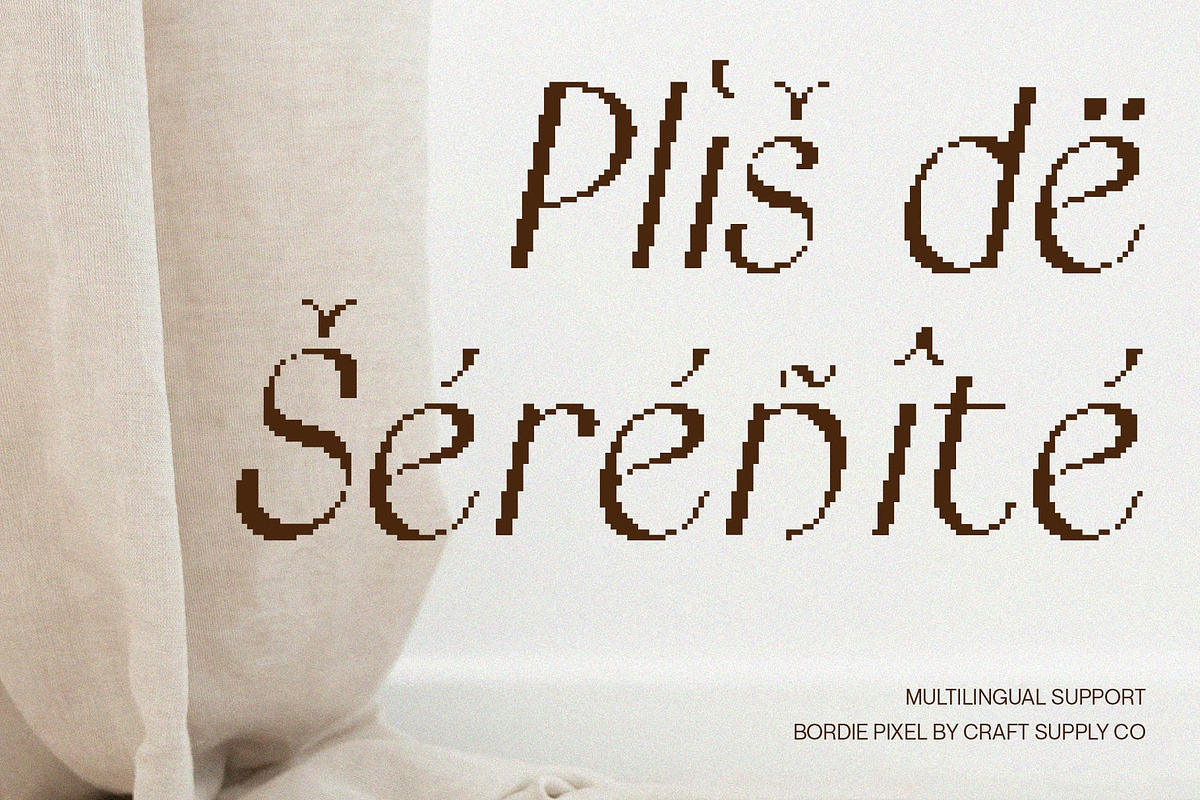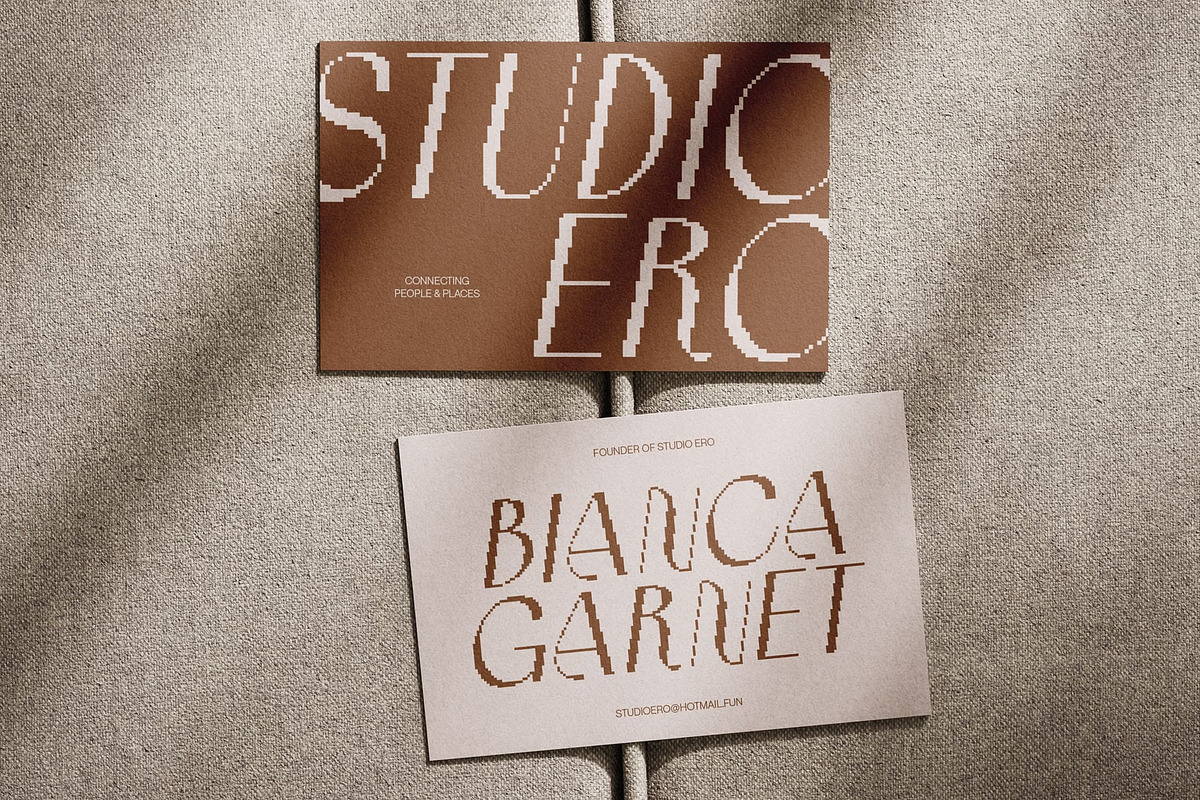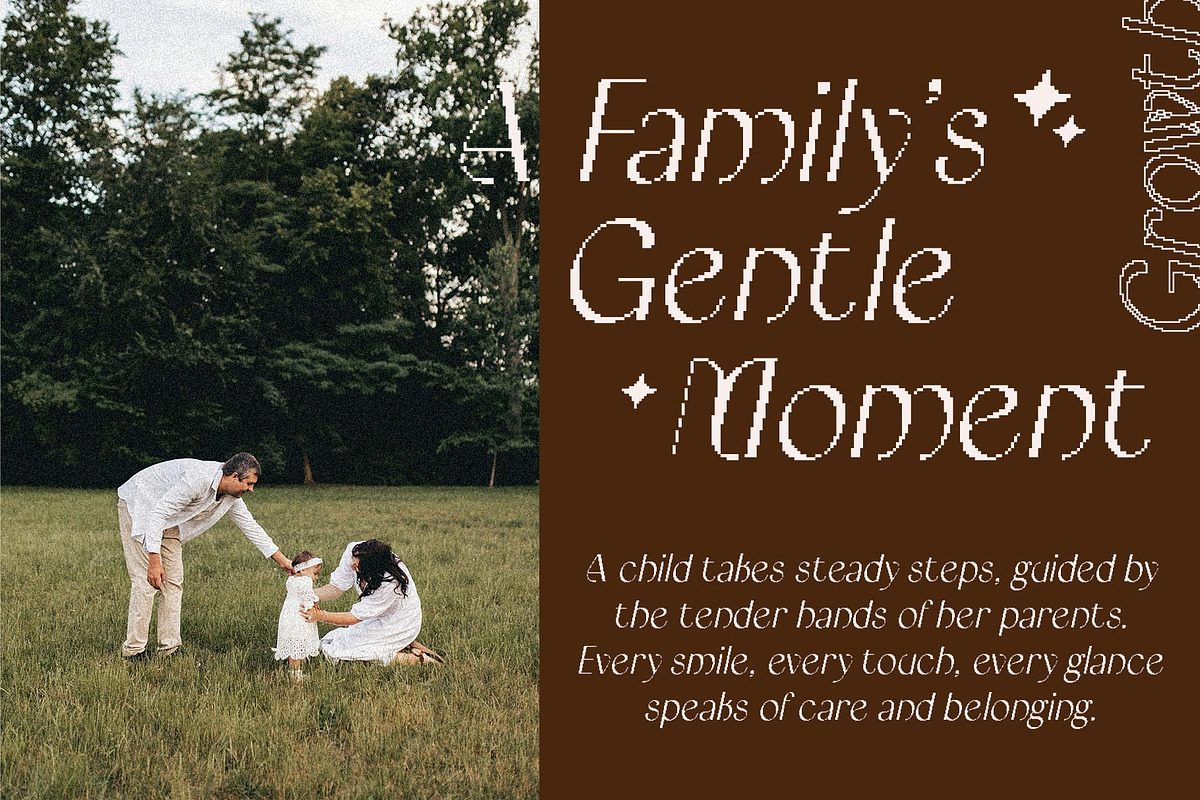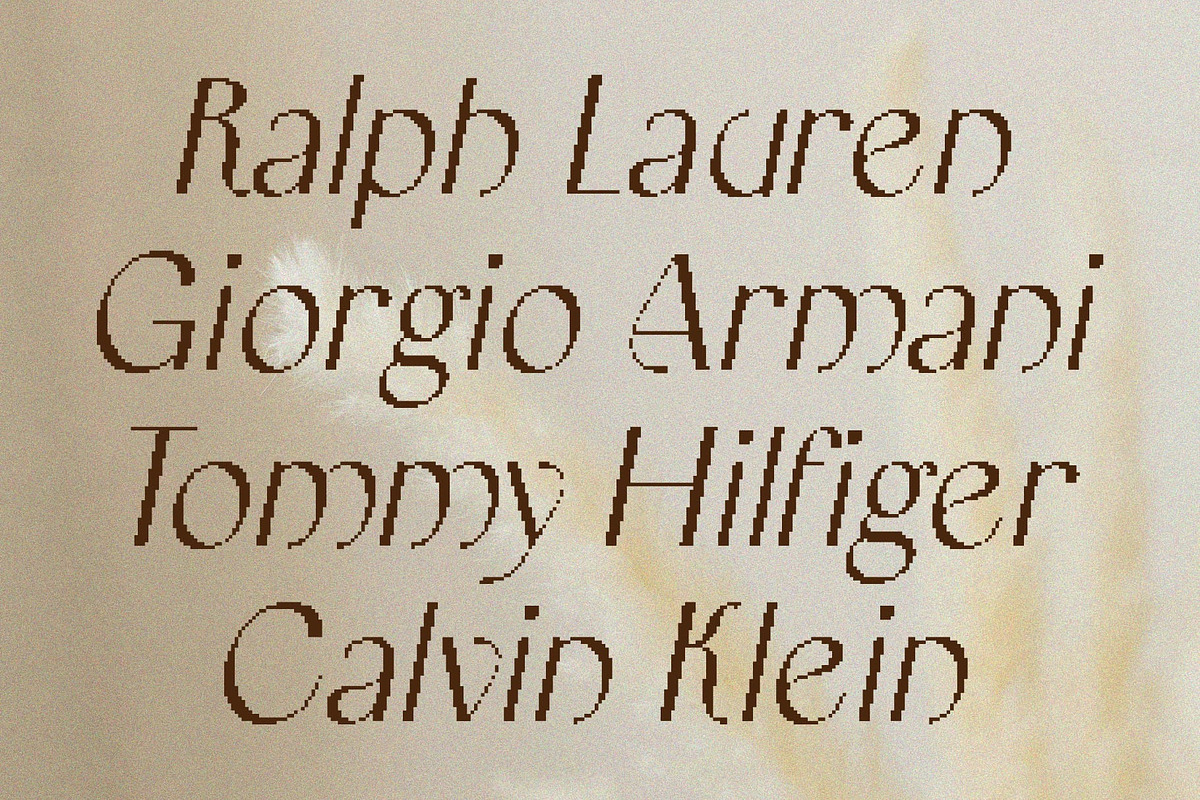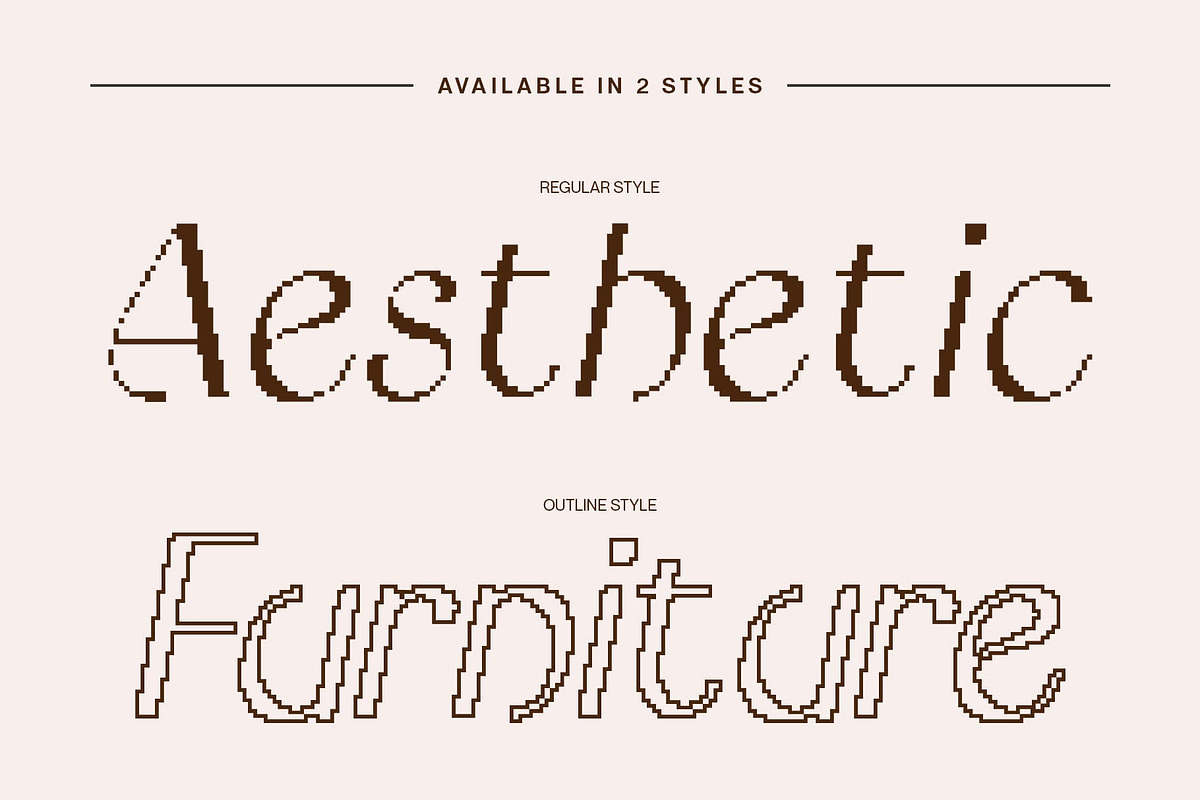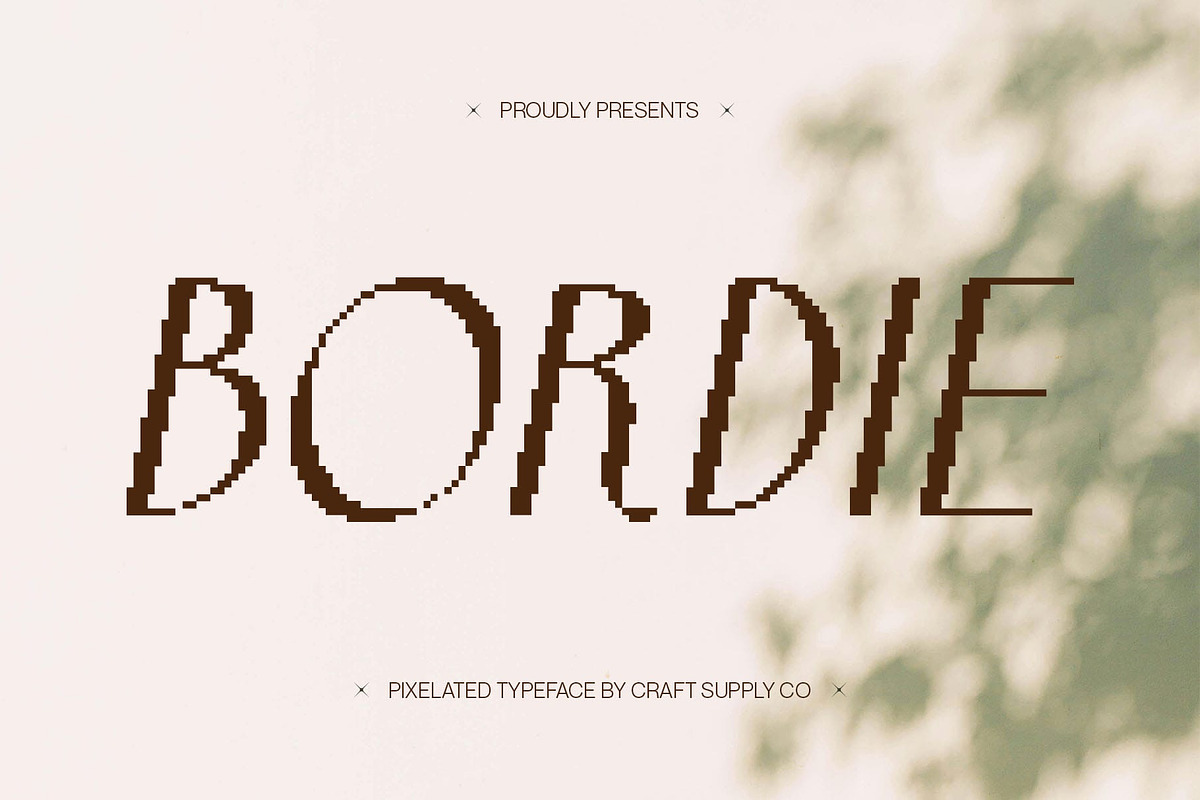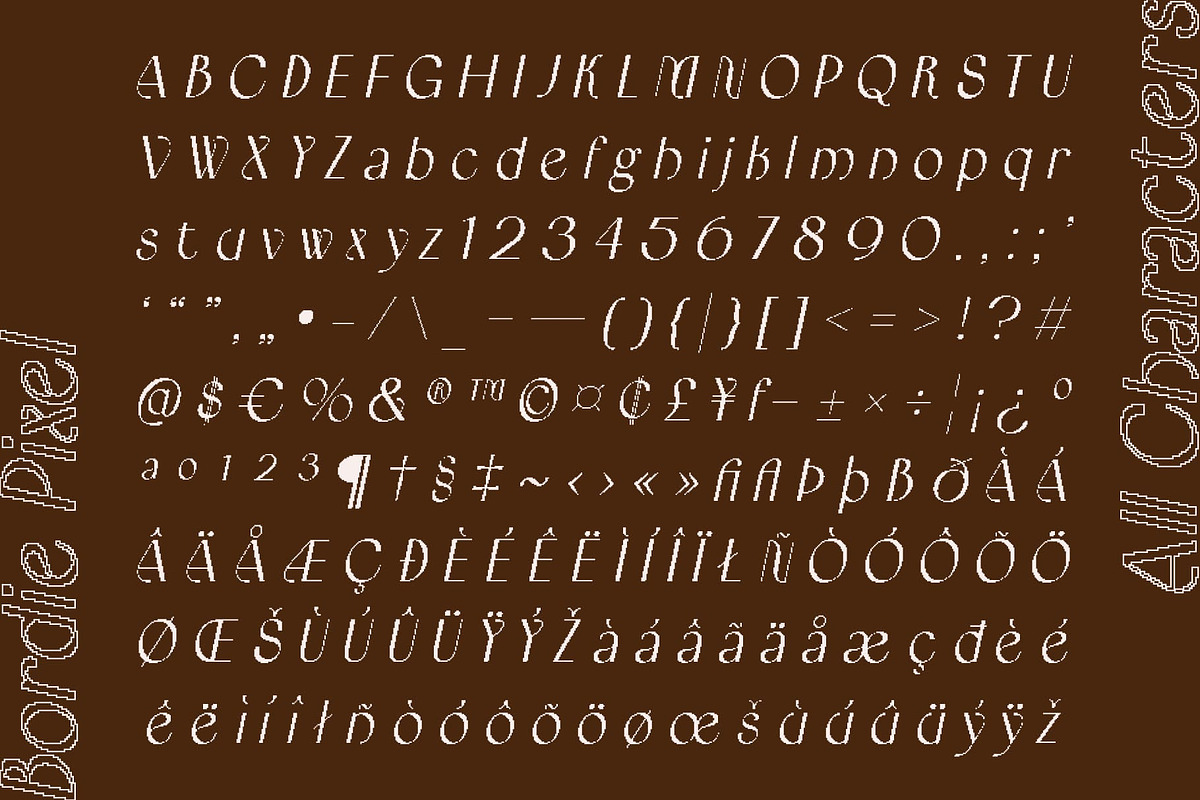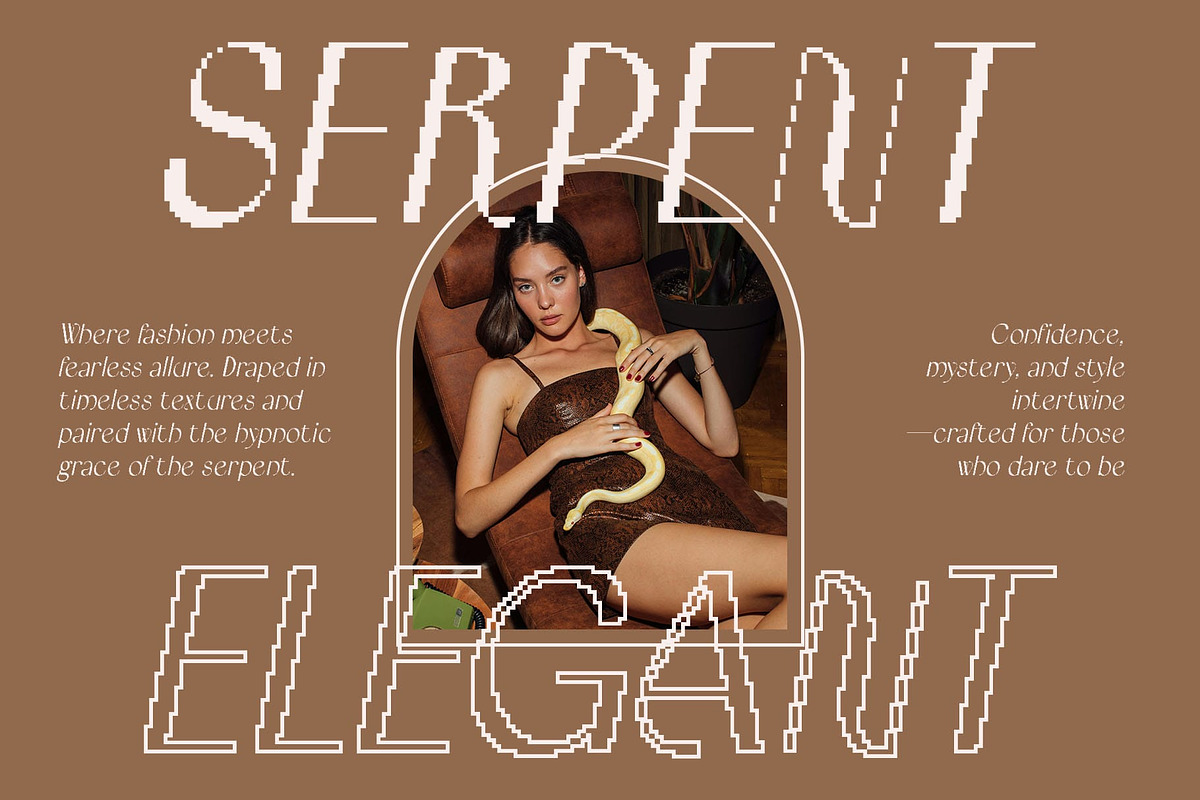
Bordie Pixel
Bordie Pixel – Elegant Pixel Display Font : Pixel Font with Stylish Elegance
Refined Pixel Aesthetic Bordie Pixel reimagines the traditional pixel font by adding a touch of elegance and personality. Its carefully crafted forms move beyond rigid grids, creating characters that feel expressive, stylish, and unique while retaining the charm of pixel-based design.
Elegant and Personal Character Unlike typical pixel fonts that lean toward blocky or mechanical looks, Bordie Pixel carries a refined personality. Its elegant shapes give it a softer, more approachable vibe, making it versatile for projects that blend digital aesthetics with sophistication.
Perfect for Fashion and Branding Bordie Pixel shines in branding applications, especially for fashion, logos, and modern identity design. Paired with soft or warm color palettes, it creates a harmonious and beautiful impression that elevates the overall look of a brand or project.
Versatile Modern Display Font Beyond branding, Bordie Pixel works seamlessly in posters, packaging, and creative layouts that need a unique blend of digital nostalgia and modern elegance. It’s a pixel font that feels fresh, stylish, and perfectly suited for today’s design needs.
- Bordie Pixel Regular
- Bordie Pixel Outline